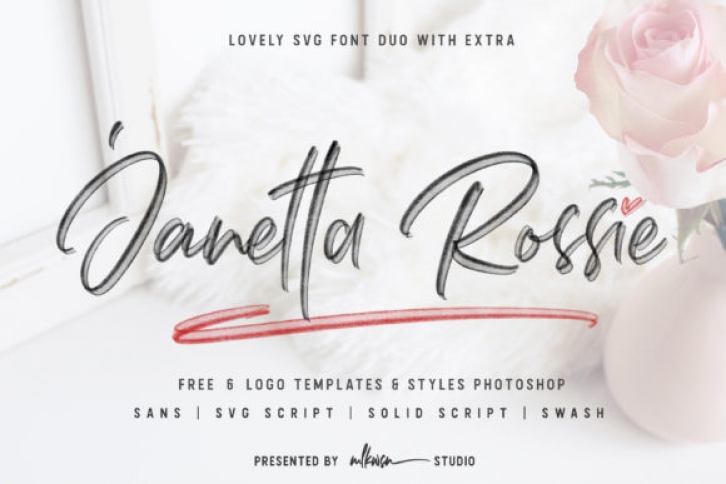
The Janetta Rossie is an amazing font duo. Both styles can be combined perfectly or be used as strong stand-alones.
It’s perfect for logos, branding, fashion, wedding invitations, handwritten quotes, and much more!